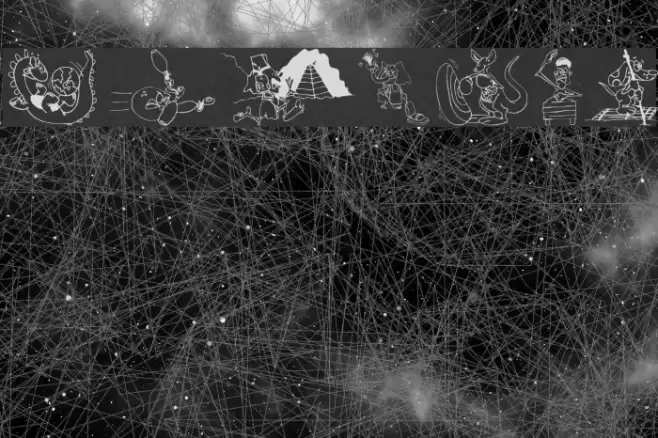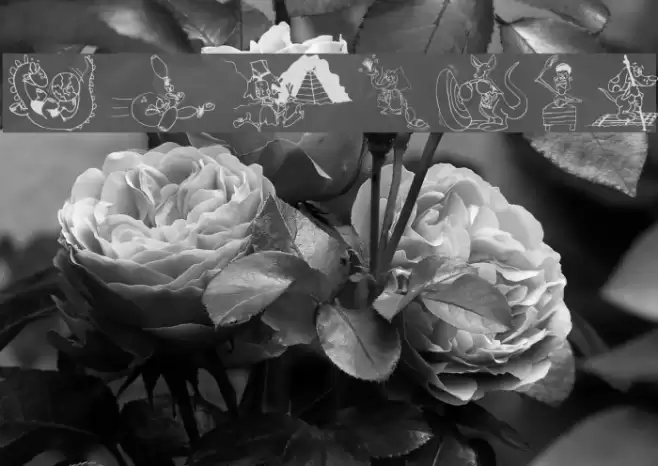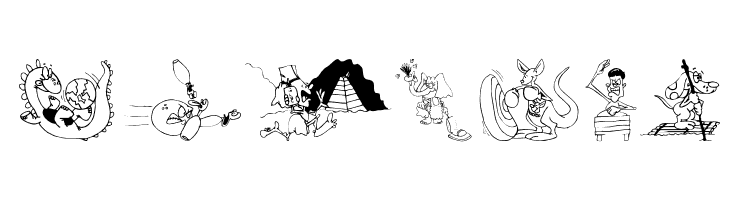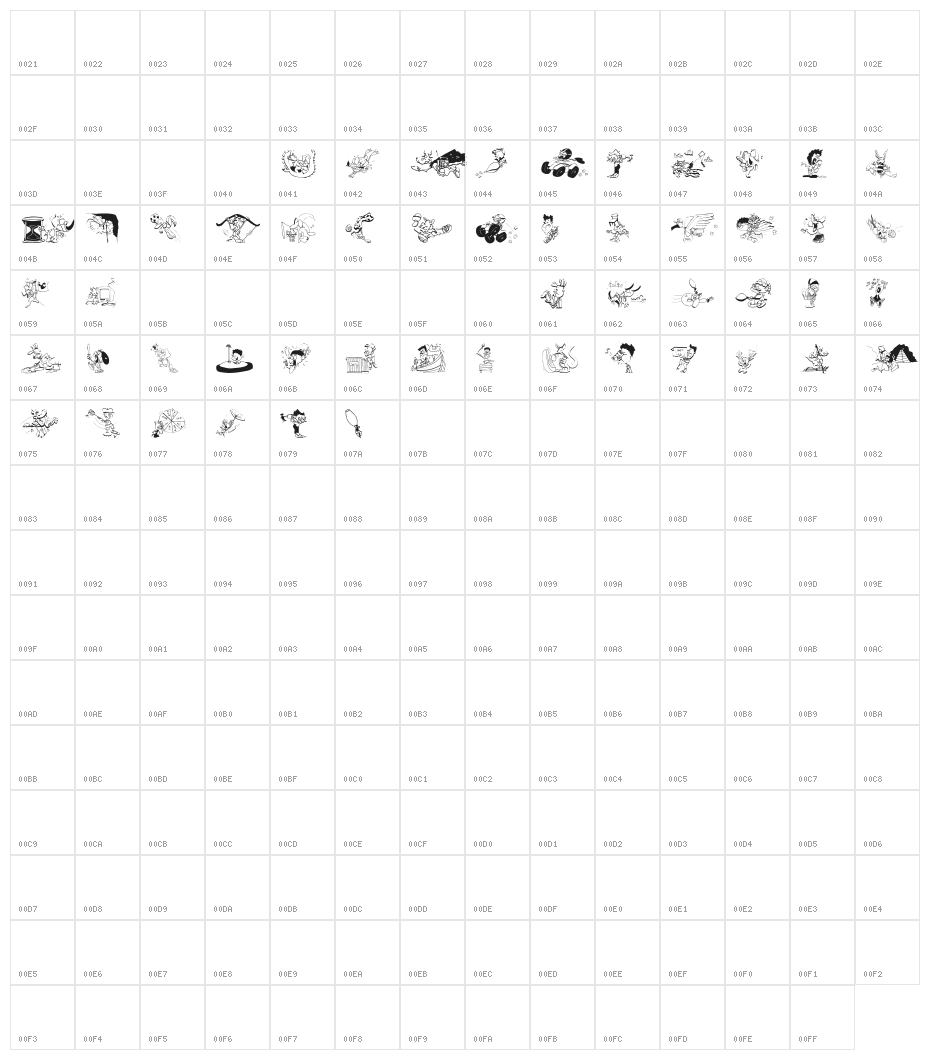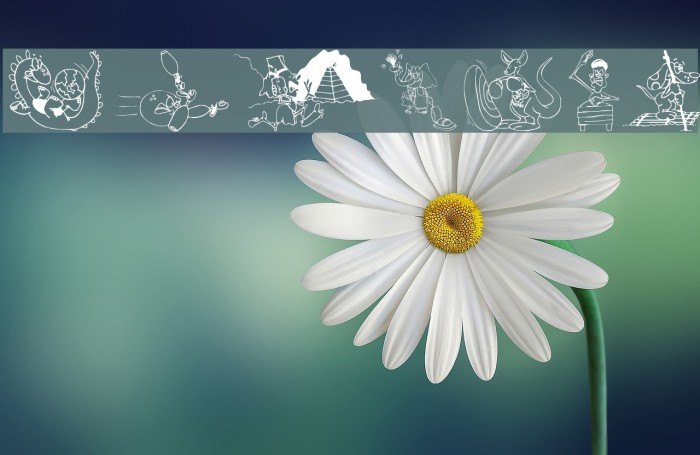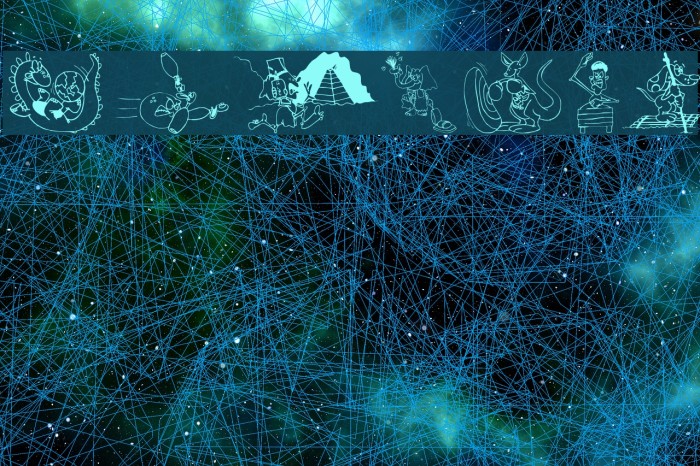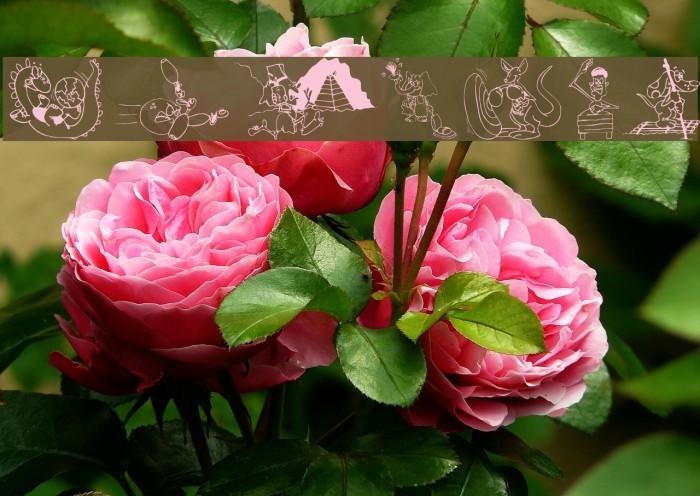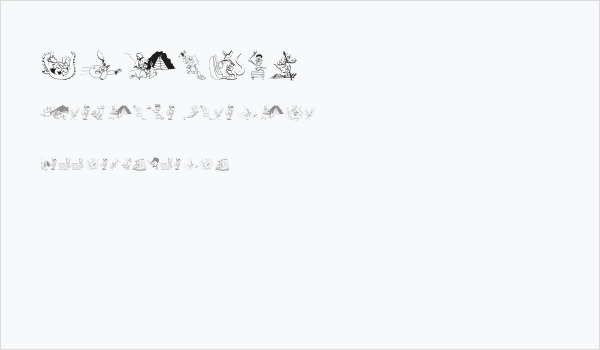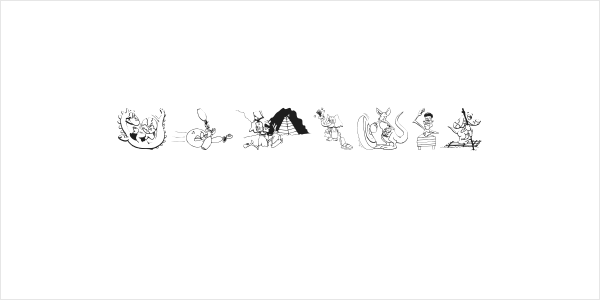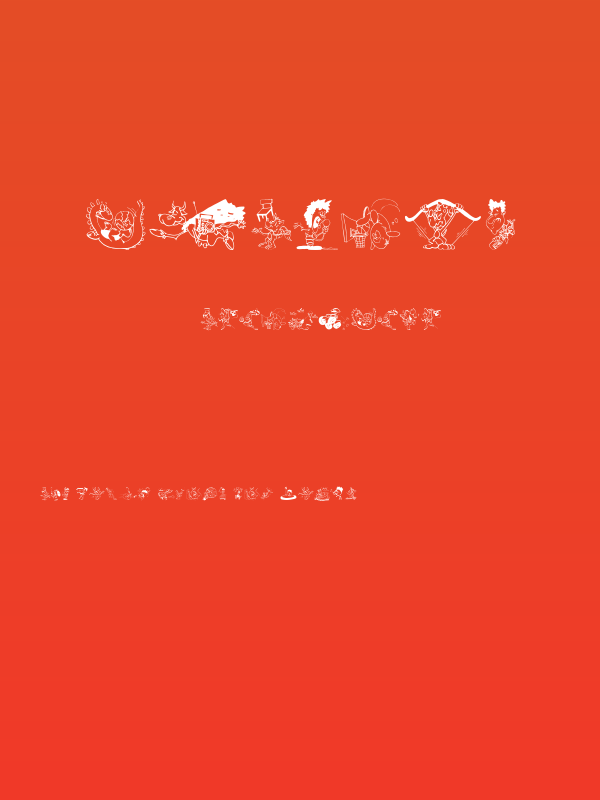
Actions Font
Actions Description
A playful, hand-drawn dingbat font featuring whimsical cartoon characters engaged in various activities and actions, each glyph representing a unique illustrated scene rather than traditional alphanumeric forms.
Cartoon action-themed dingbat font with hand-drawn illustrations from Uncategorized fonts.
- Proposed Projects: Children's books, educational materials, playful posters, activity sheets, greeting cards, comic strips.
- Overall Style: Playful, Whimsical, Decorative
- Use Case: Illustrative accents, thematic dividers, creative design elements.